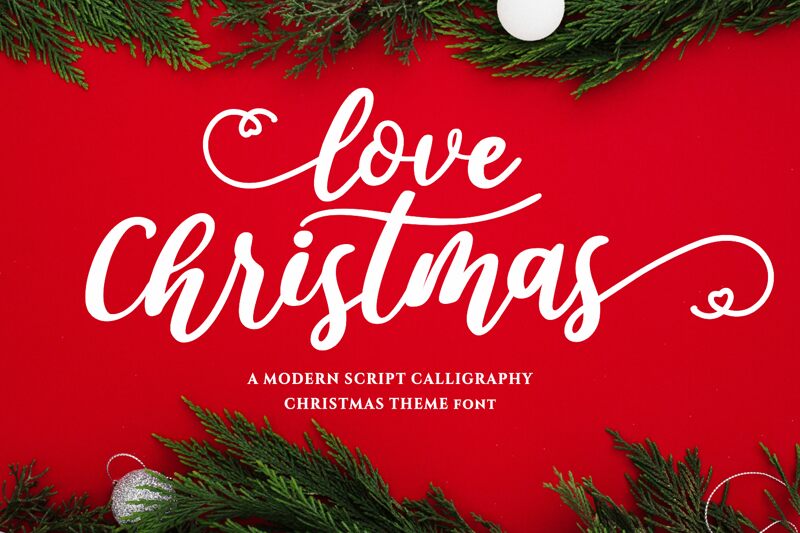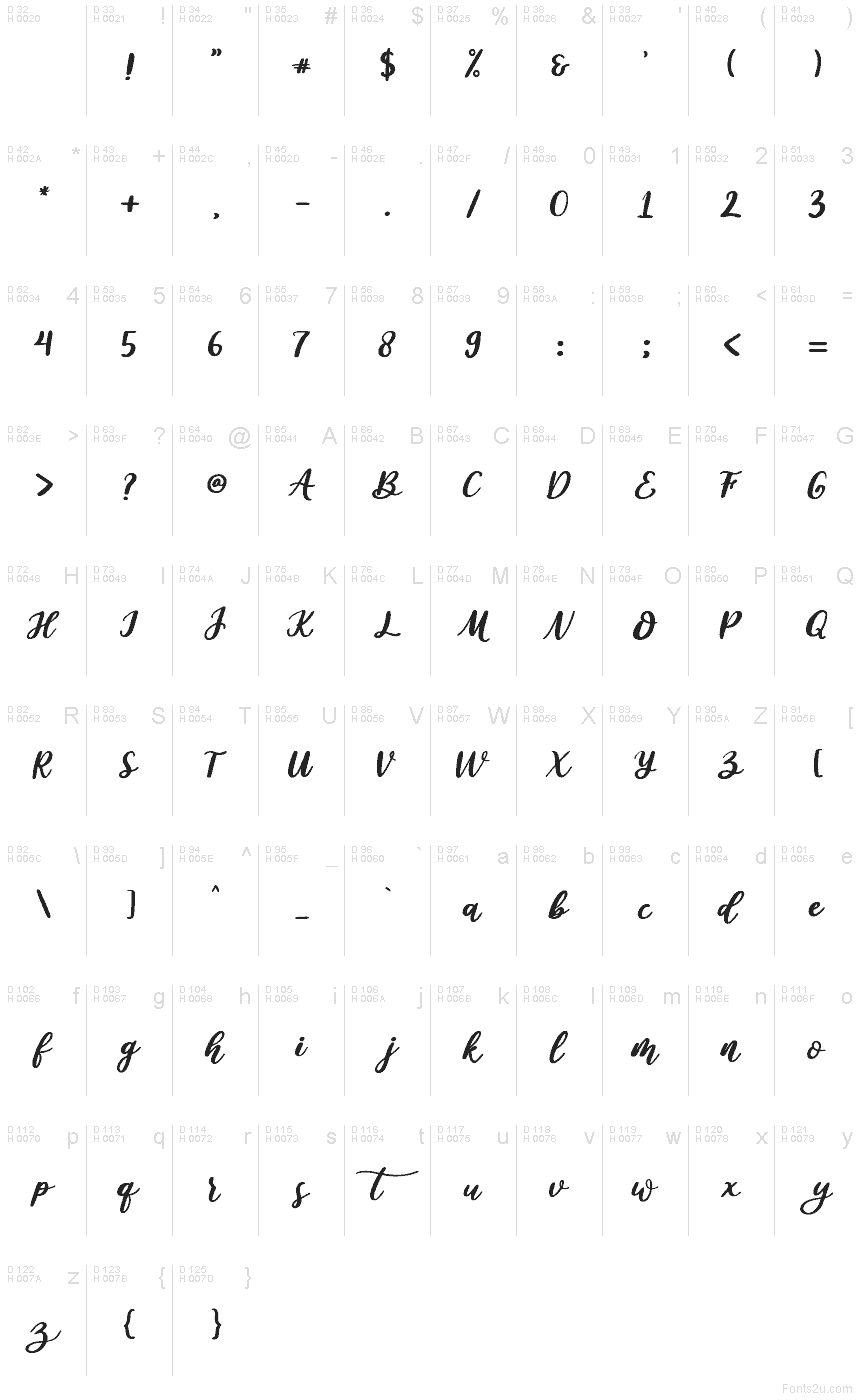
Love Christmas
Love Christmas font by Girinesia.std is a free handwritten holiday typeface that brings cozy, card-ready warmth to every word. Its inky, brush-style strokes swoop and loop with a relaxed confidence, like a carefully penned greeting on thick, textured cardstock. Playful swashes and smooth curves add a festive flourish without feeling fussy, giving your layouts that personal, “written just for you” touch.
Using Love Christmas, your Christmas cards, gift tags, printable wall art, party invitations, seasonal logos, and Instagram posts instantly feel more heartfelt and handcrafted. This free font shines at larger sizes where its flowing lines and lively rhythm can really breathe. Pair it with a clean, simple sans serif for body text to keep your holiday designs charming, legible, and joyfully on-brand.